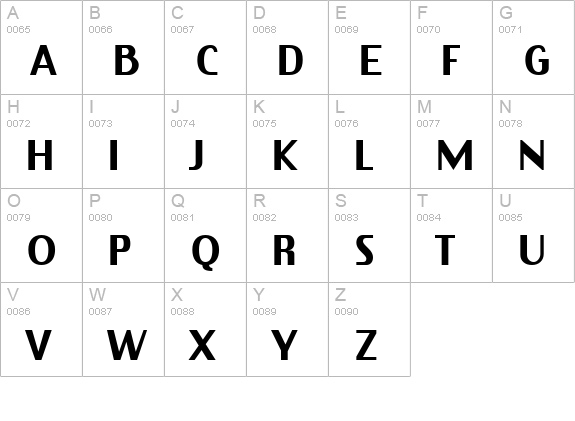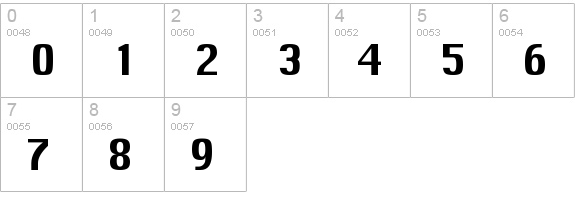
Virtue Font Details
Virtue Font is a stunning typeface that embodies elegance, refinement, and sophistication. It exudes a sense of grace and poise, making it the perfect choice for any project that requires a touch of class. With its clean lines and intricate details, Virtue Font effortlessly captures attention and leaves a lasting impression. But what sets Virtue Font apart is not just its remarkable aesthetics; it's also the fact that it is freely available to download at FontsMarket.com. Yes, you read that right - this exquisite font can be yours without spending a dime. Whether you're a professional designer or an aspiring creative, Virtue Font gives you the opportunity to elevate your work without breaking the bank. The versatility of Virtue Font knows no bounds. Its timeless appeal makes it ideal for a variety of applications - from branding and packaging to editorial design and wedding invitations. It adds a touch of sophistication to any project, making it stand out in a sea of mediocrity. The meticulously crafted characters of Virtue Font are a testament to the skill of its designer. Each letter is thoughtfully designed, ensuring perfect harmony and balance within the typeface. The result is a font that is not only visually pleasing but also highly legible, making it a joy to read in any context. Whether you're designing a logo, creating an advertisement, or crafting a magazine layout, Virtue Font will undoubtedly be a valuable addition to your toolkit. Its versatility, elegance, and the fact that it is freely available to download at FontsMarket.com make it a must-have for any designer or creative enthusiast. So why wait? Take advantage of this incredible opportunity and elevate your work with the timeless beauty of Virtue Font.